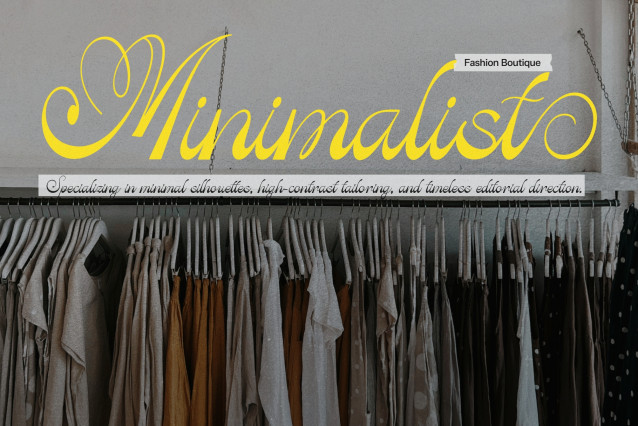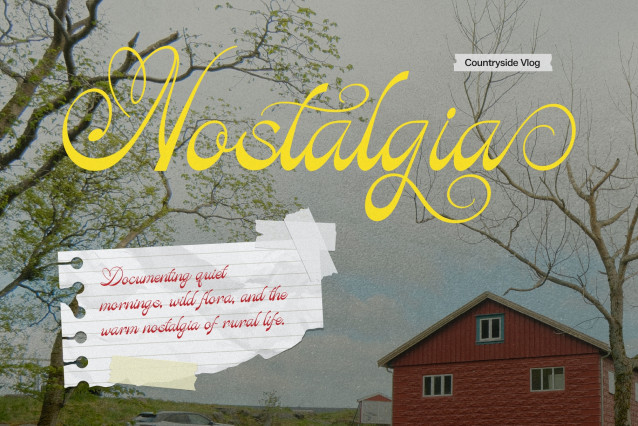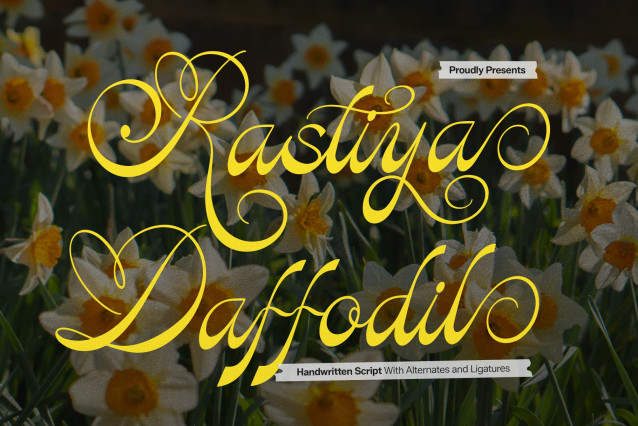
Kasfia Sirius Classic Script, from Gracetypestudio, suitable for any projects such as: logos, branding projects, homeware designs, product packaging, mugs, quotes, posters, shopping bags, t-shirts, book covers, name card, invitation cards, greeting cards, label, photography, watermark, special events, and all your other lovely projects that need a Script Font taste.